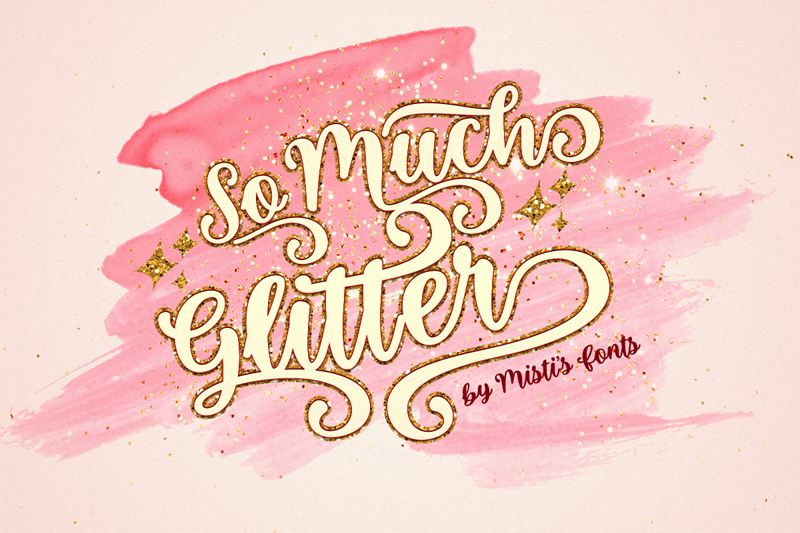
So Much Glitter is a beautiful, bold, and bouncy script font. Along with it�s carefully crafted curls, it is also packed with lots of fancy swashes that will make your projects stand out from the crowd. It is great for logos, holiday posters, advertisements, wedding invites, and so much more! Terms Of Use & Commercial Licensing: https://mistifonts.com/so-much-glitter/ |